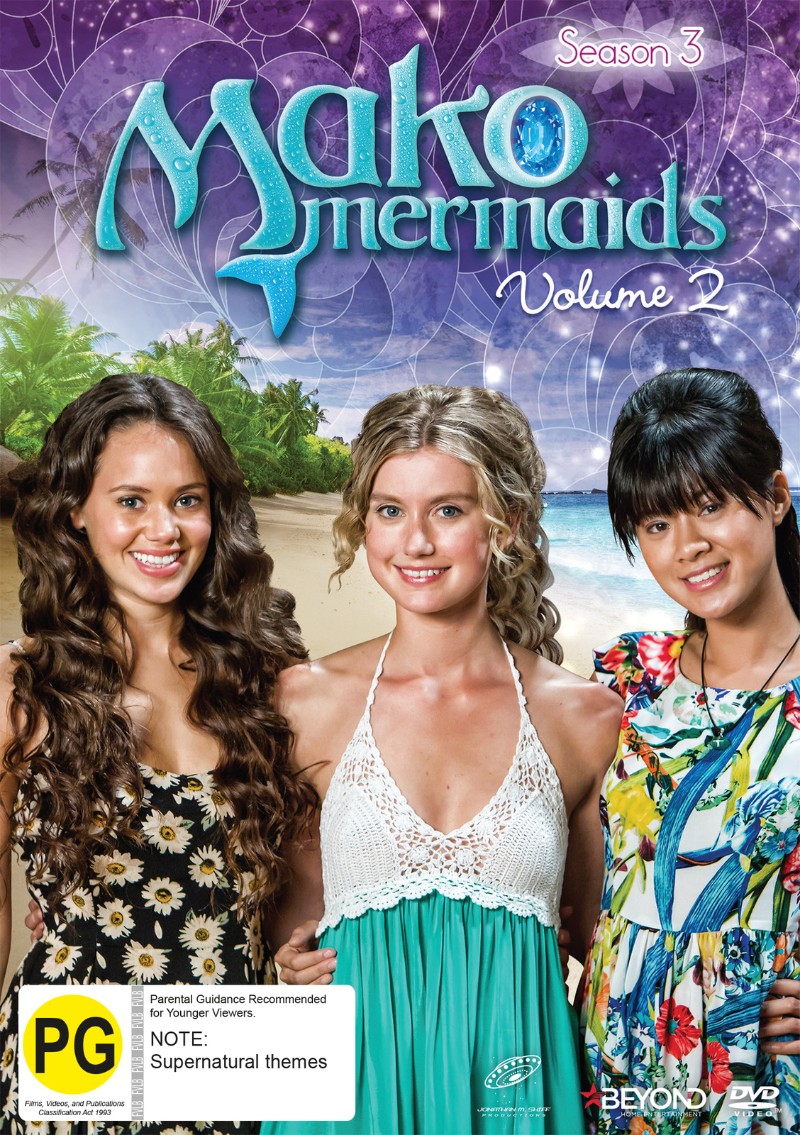
Mako Mermaids Font
The logo of the "Mako: Island of Secrets" TV series was made with Argos George, a decorative font designed by Dieter Steffmann, and is considered a revival of the Argos typeface created by Belgian designer Georges Lemmen in 1908. It is a free font and can be easily downloaded from the Fonts Used Section